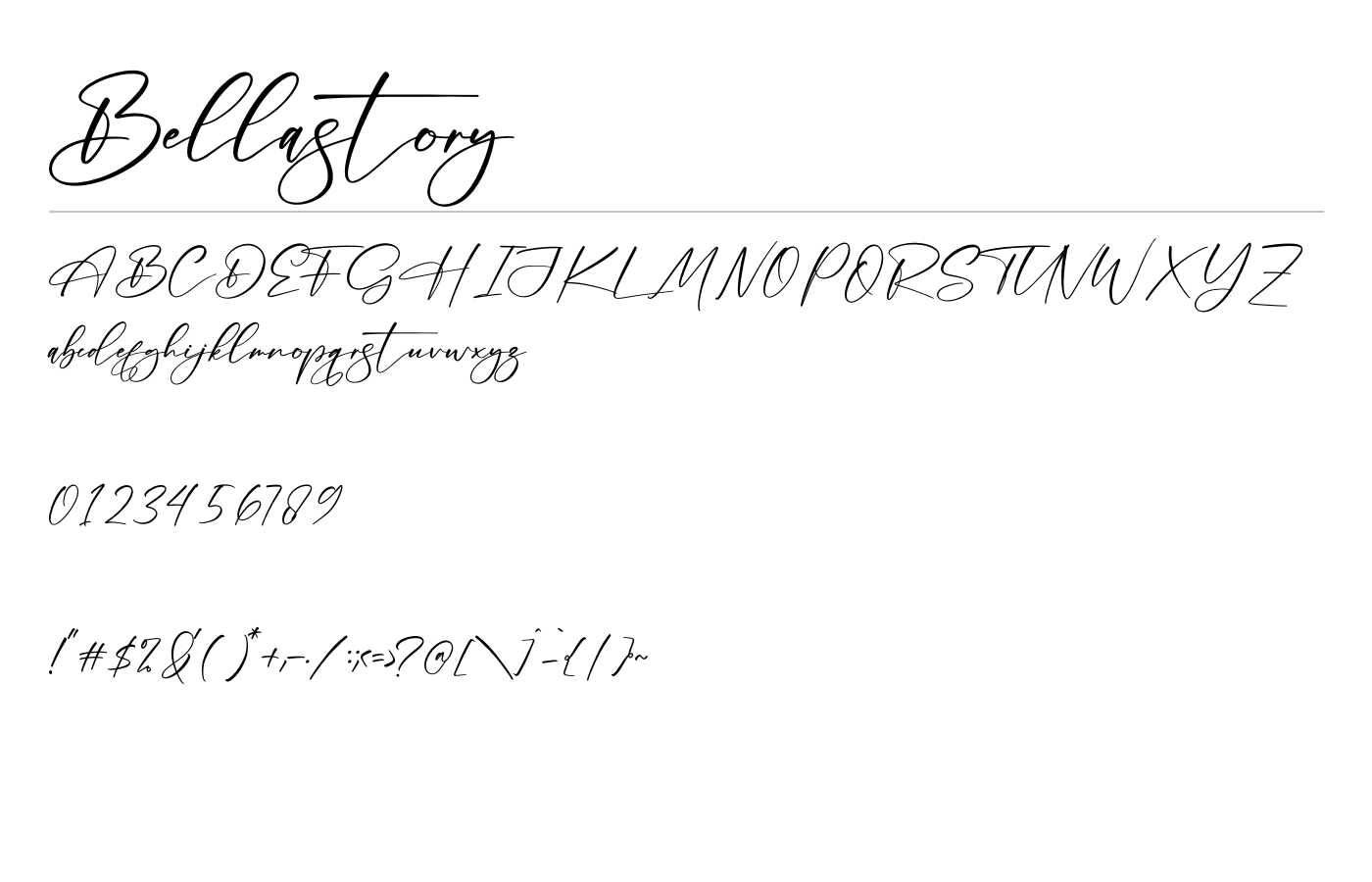
Bellastory is a delicate and elegant script font featuring slender, flowing strokes that emulate natural handwriting with a refined, modern flair. Its light weight and graceful letterforms bring a sophisticated, personal touch, making it perfect for wedding invitations, branding, and luxury packaging where a stylish and intimate feel is desired. This font’s airy and artistic design works beautifully for headlines and accent text, adding charm without overwhelming the overall look.
Bellastory Font
About Bellastory Font